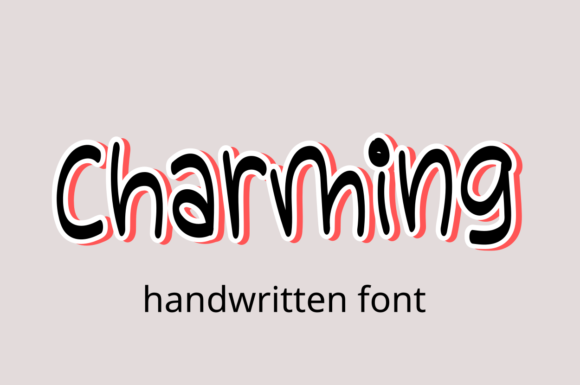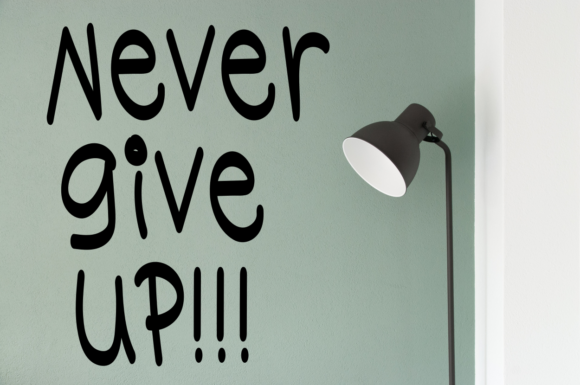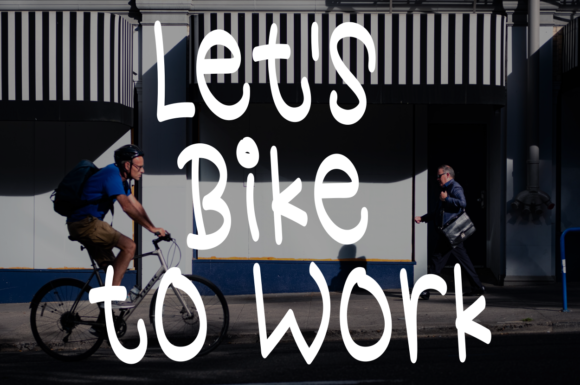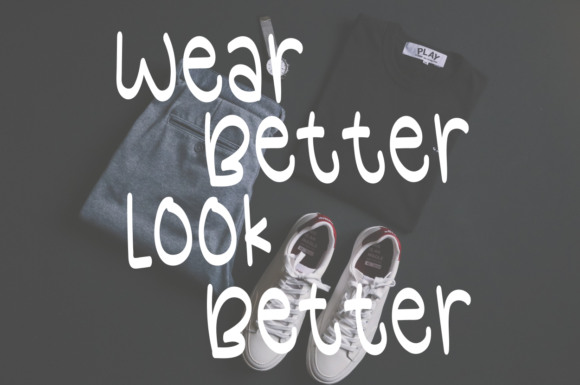
Charming Font
About Charming Font
Charming is a simple and quirky handwritten font. Its friendly feel makes this font incredibly versatile, fitting a wide range of contexts. It looks stunning on thank you cards, quotes, greeting cards, logos, business cards and every other design which needs a customized touch.